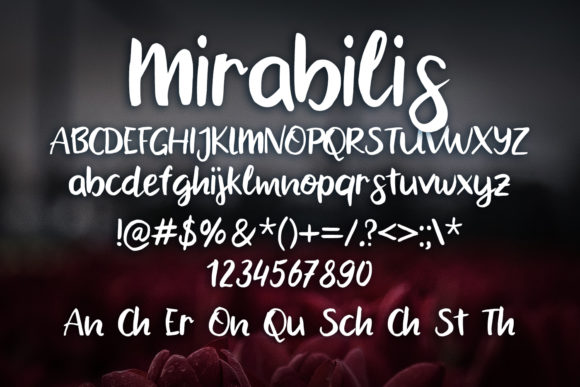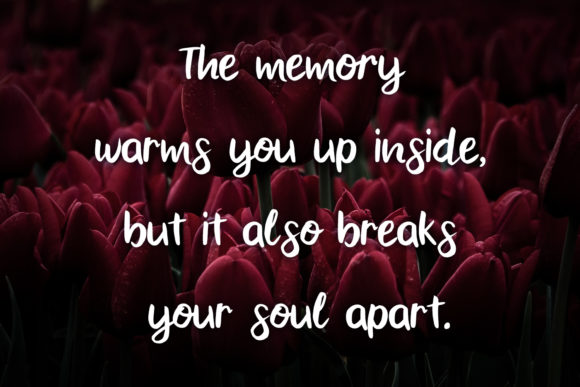
Introduction to Mirabilis Font
Mirabilis is a sweet and cursive handwritten font.
This gentle font will look gorgeous on a variety of design ideas It will add a joyful and romantic touch to each of your projects.
Why Choose Mirabilis Font?
Mirabilis Font offers exceptional quality and versatility, making it a valuable addition to your design toolkit. Whether you’re creating for personal projects or commercial use, Mirabilis Font delivers professional results.